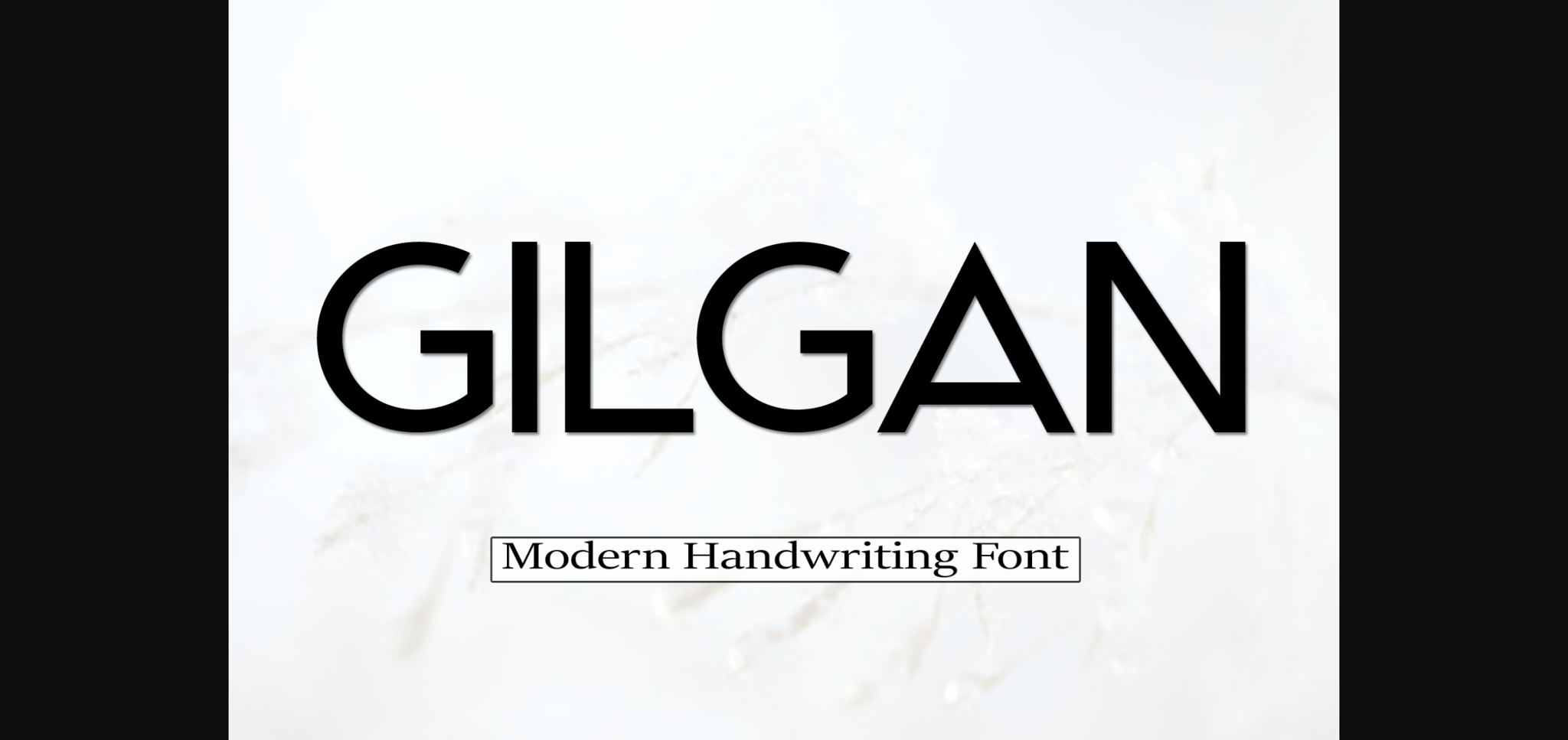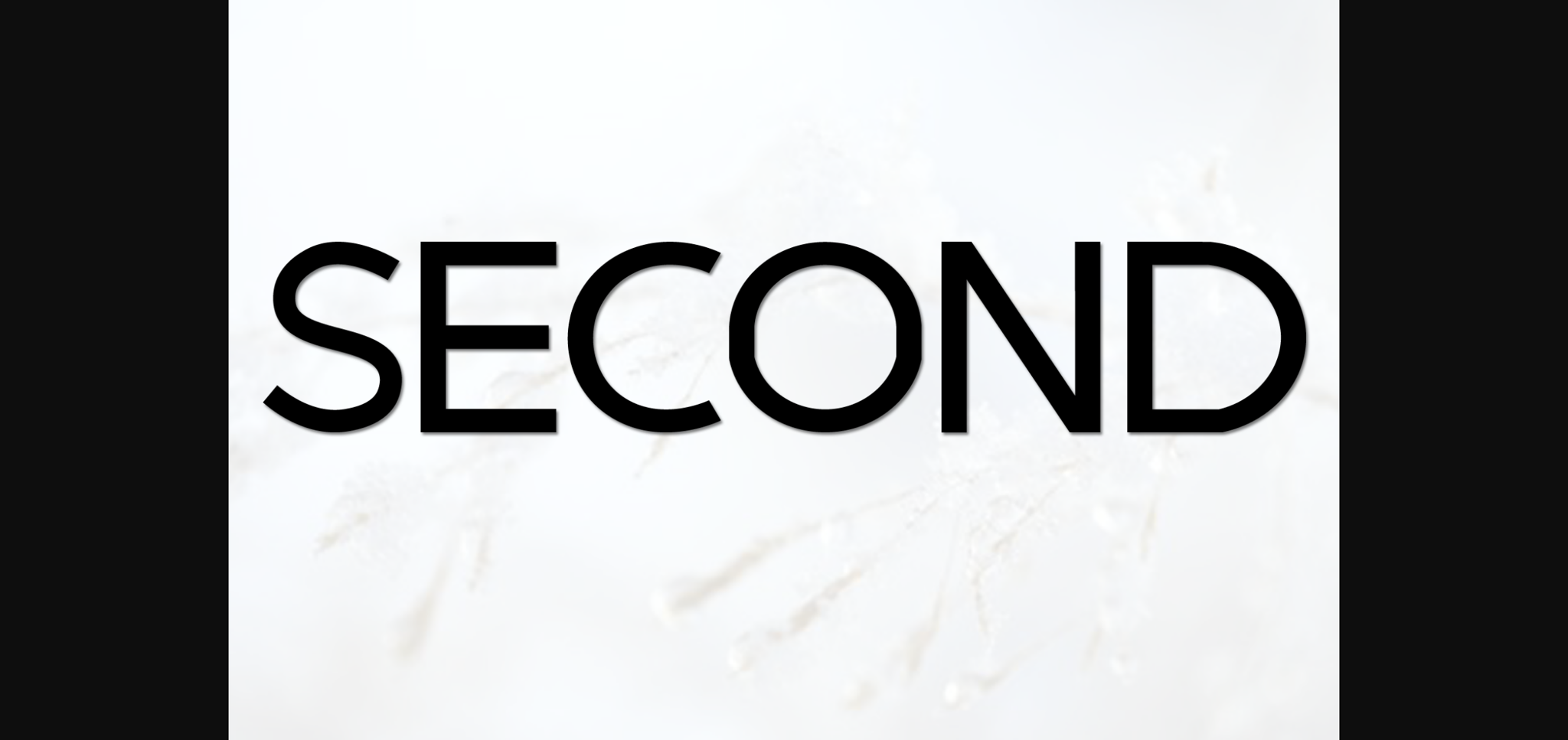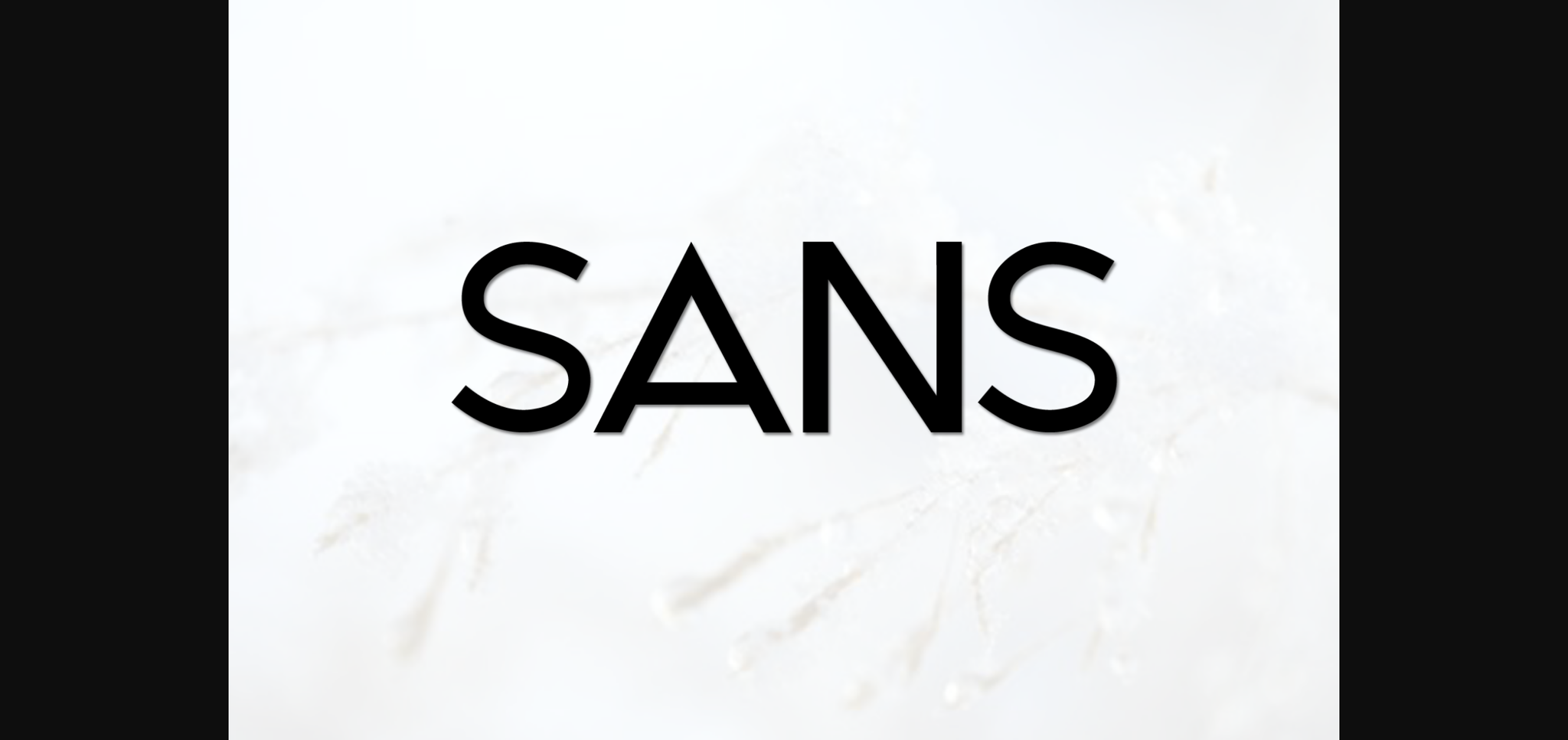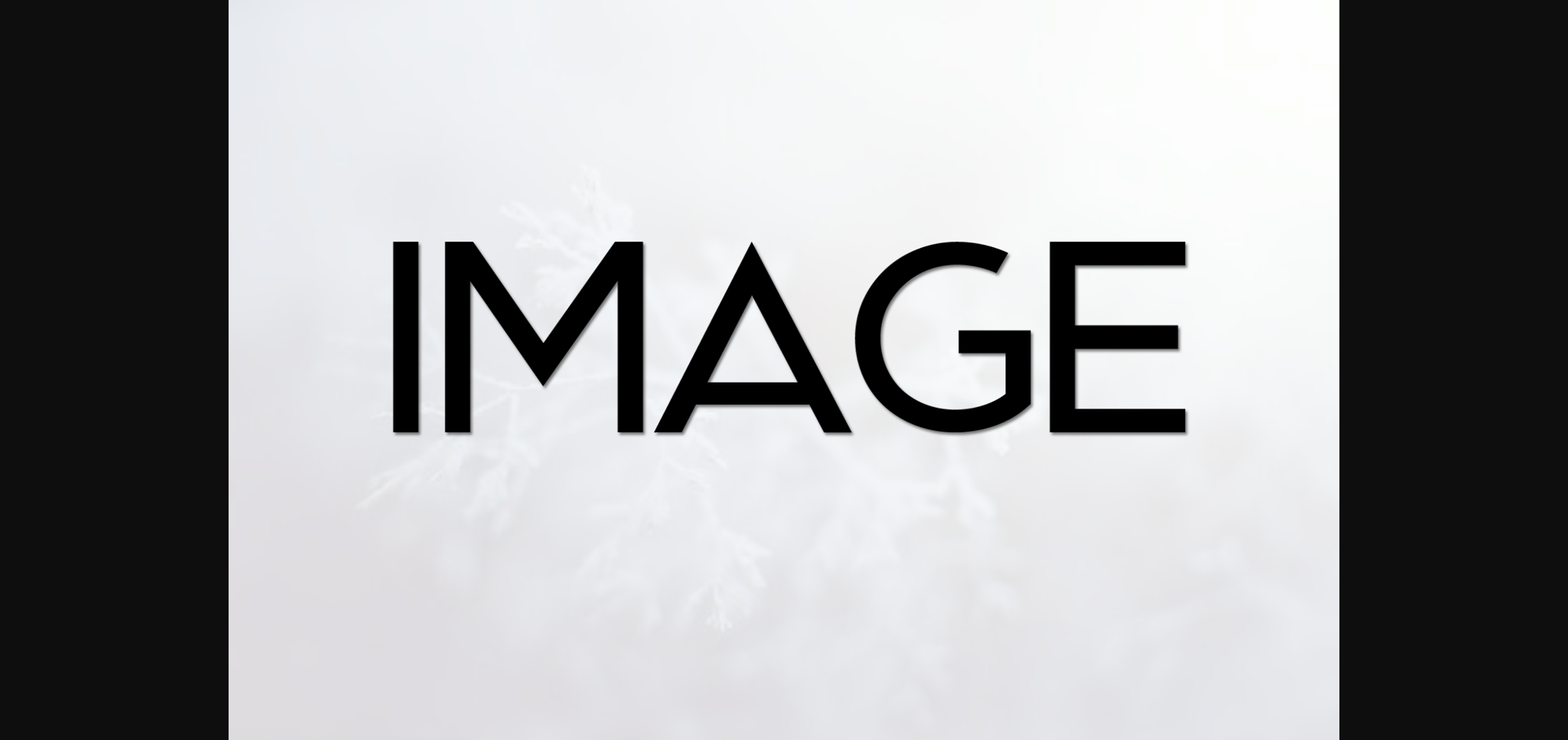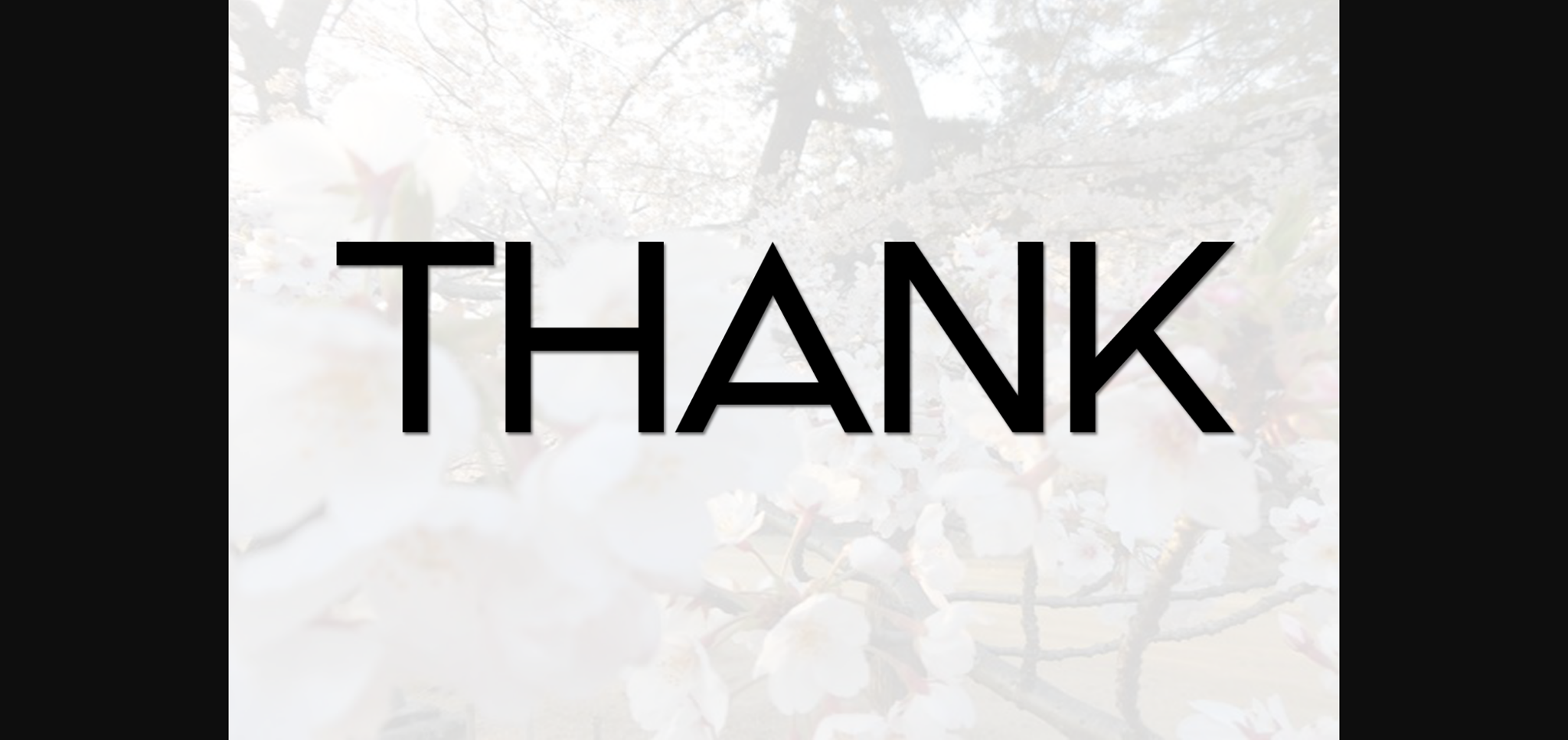
HomeSans Serif FontsGilgan Font Sans Serif Fonts Gilgan Font FacebookXPinterestWhatsApp 1 of 7 ... Gilgan Font Poster 2... Gilgan Font Poster 3... Gilgan Font Poster 4... Gilgan Font Poster 5... Gilgan Font Poster 6... Gilgan Font Poster 7... About Gilgan Font Gilgan is a stylish and very elegant handwritten font. It looks amazing on wedding invitations, thank you cards, quotes, greeting cards, logos, business cards, and any other design that calls for a handwritten touch. DOWNLOAD NOW People also explored Chocolate Font Never Be Lonely Font Grit Font Creaky Dwallbypro Font Signature Men Font Galvin Family Pack Jungle Font Cute Bat Halloween Font 245 0 TagsGilganGilgan Font Previous articleChristmase FontNext articleImprove Font LEAVE A REPLY Cancel reply Comment: Please enter your comment! Name:* Please enter your name here Email:* You have entered an incorrect email address! Please enter your email address here Website: Save my name, email, and website in this browser for the next time I comment. Personal Use Free Baby Mollusca Personal Use Free Read more about this font Pridaem Cooper Personal Use Free Read more about this font Knucklehead Personal Use Free Read more about this font Delions Personal Use Free Read more about this font BLOG How to Cut Any Font on Cricut: Convert a Font to SVG (Free) Turn any font into a clean SVG so it cuts crisp on Cricut - a quick 3-step workflow using a free font-to-SVG tool. 5 Fonts That Will Dominate Design Trends in 2026 Fonts That Capture the Spirit of New York City The 10 Best Handwriting Fonts to Add Personality to Your Designs